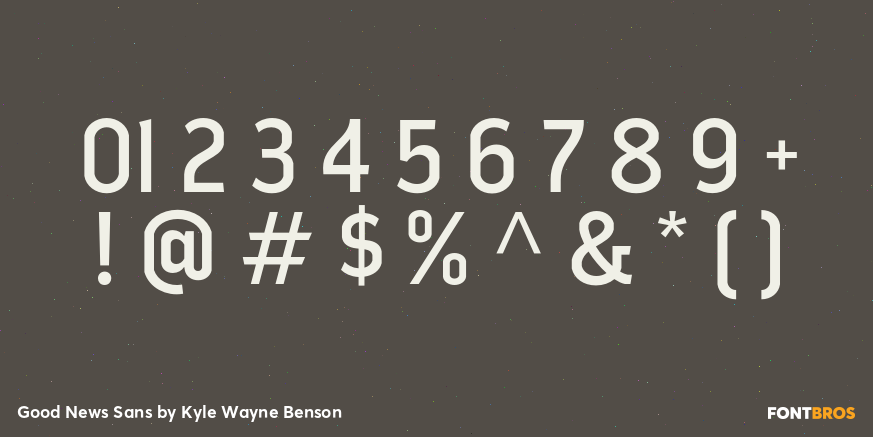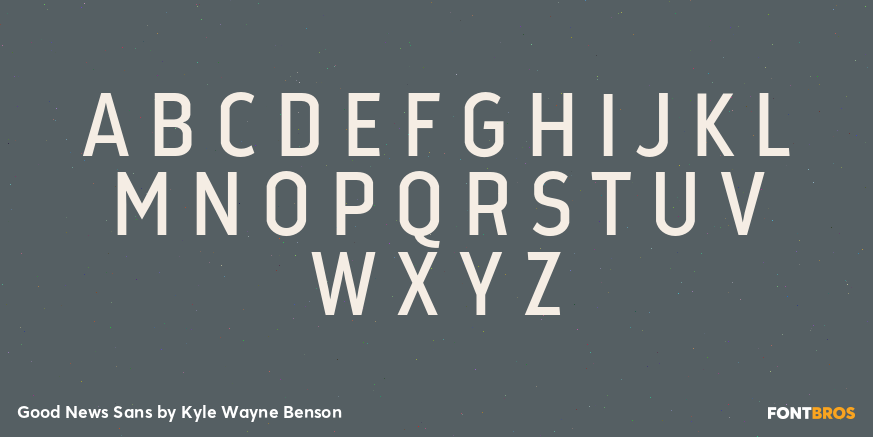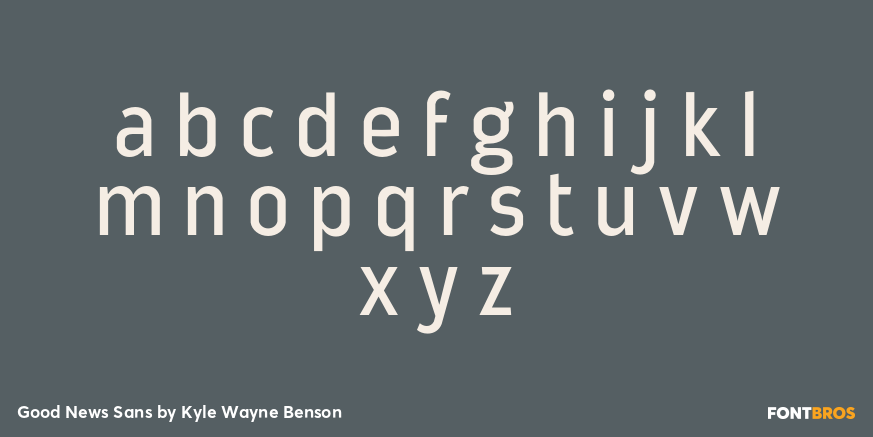
Good News Sans
Font Family by Kyle Wayne Benson
Good News Sans? 18 fonts come with 6 weights and 3 widths to complement any of your printing needs. We understand your woodwork brochure needs a sense of grace with a twinge of urgency. Good News Sans includes a full small caps set for that. And don't worry, we know you're working hard on that catalog for Chilean cattle ranchers. Not only does Good News Sans offer wide language support, it has OpenType functions and vintage looking fractions to impress their bookkeepers. Good News Sans even provides arrows, display asterisks, many stylistic alternates, and ordinal catchwords.